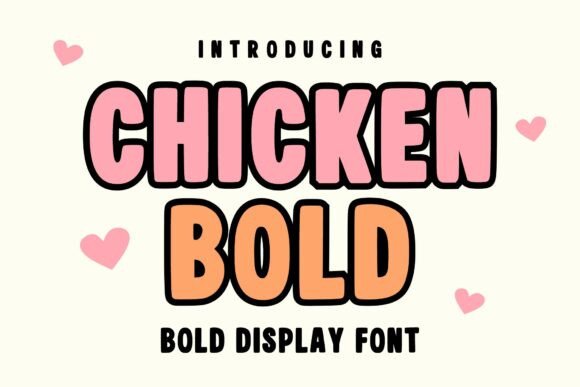
Chicken Bold: A Designer's Honest Review for Real Projects
I have spent years selecting typefaces that do more than just fill space on a page. When I first opened the Chicken Bold file, my initial reaction was one of cautious curiosity. It is not another generic sans serif or a standard serif font that blends into the background. This is a display font with a distinct personality that demands attention immediately. In a market saturated with safe, predictable choices, finding a typeface that strikes a balance between playful charm and structural integrity is rare. After putting it through its paces in various mockups and client scenarios, I am ready to share exactly how this creative font performs in the real world.
The First Impression: Personality Over Perfection
From the very first glance, Chicken Bold exudes a specific mood. It feels approachable, slightly retro, yet undeniably modern in its execution. The letterforms are thick and confident, but they lack the stiffness often found in heavy geometric typefaces. There is a subtle organic quality to the curves that suggests hand-crafted warmth rather than cold digital precision. This makes it an ideal choice for projects where you want to evoke trust and friendliness without sacrificing visual impact.
When used as a primary headline, this typeface creates an immediate hierarchy. It tells the viewer that what follows is important, fun, and worth their time. It does not scream for attention in a chaotic way; instead, it invites the reader in with a bold, welcoming stance. For brand owners and marketers looking to establish a unique identity, this font offers a visual voice that stands out in crowded feeds and physical spaces alike.
Real-World Performance Across Industries
Design theory is one thing, but application is another. I tested Chicken Bold across a wide spectrum of use cases to see if it holds up under pressure. In logo design, it shines when paired with simple iconography. The weight of the letters provides enough visual mass to anchor a logo mark, making it memorable even at small scales. Whether you are designing a mascot for a food truck or a badge for a local bakery, this commercial font delivers instant recognition.
In the realm of packaging design, the font proves its versatility. On product labels and premium packaging, the high contrast between the bold strokes and the white space allows for excellent legibility. It works particularly well for short phrases like "Organic," "Fresh," or "Limited Edition." However, it is less suitable for long blocks of text. As a display font, its strength lies in brevity and impact. For editorial design, it serves as a powerful tool for pull quotes or section headers, breaking up dense text with a burst of energy.
Digital creators will find immense value in this asset. For social media graphics, the font ensures that your posts stop the scroll. Its chunky forms translate beautifully on mobile screens, maintaining clarity even when viewed on smaller devices. I also tested it in web design contexts, specifically for website headers and call-to-action buttons. Here, it adds a layer of personality that standard system fonts simply cannot match. If you are creating printable design assets or digital products like planners and templates, Chicken Bold elevates the perceived value of your work instantly.
Strategic Applications and Pairing Potential
The true test of any modern typography is how it interacts with other styles. I experimented with pairing Chicken Bold alongside different categories of type to see how it harmonizes. When placed next to a clean sans serif font, the combination creates a balanced look that is both professional and friendly. The neutral nature of the sans serif grounds the whimsical character of the display font, preventing the design from feeling too chaotic.
For projects requiring a touch of elegance, pairing this font with a delicate script font can yield stunning results. The contrast between the sturdy, blocky letters of Chicken Bold and the fluid lines of a handwritten script creates a dynamic tension that is visually engaging. This is perfect for wedding invitations, greeting cards, or boutique branding where you want to convey luxury mixed with personal care. Similarly, using it beside a classic serif font can give a vintage, editorial feel that appeals to audiences who appreciate tradition.
It is crucial to remember that this font excels in large headlines, short phrases, and brand marks. It is not designed to be your body text. Using it for supporting text or long paragraphs would overwhelm the reader and damage readability. Instead, reserve it for decorative accents, premium packaging highlights, and social posts where visual impact is the primary goal. By limiting its usage to these strategic areas, you maintain a clean, professional aesthetic while still leveraging the font's unique charm.
Technical Considerations and Practical Notes
Before committing to a new design asset, a seasoned designer always runs a few technical checks. I strongly recommend testing Chicken Bold in black and white first. Sometimes color masks issues with spacing or stroke weight, but removing color reveals the true structure of the letters. You need to ensure that the negative space remains open and that the counters (the enclosed spaces inside letters) do not close up too much at smaller sizes.
Whether you are crafting a Cricut project, designing a flyer, or building a complete digital product, Chicken Bold delivers consistent results. It respects the rules of good design while offering the freedom to express a unique voice. If you are looking for a premium font that bridges the gap between playful and professional, this typeface deserves a spot in your toolkit. Just remember to use it wisely, pair it thoughtfully, and let its bold character lead the way in your next big project.